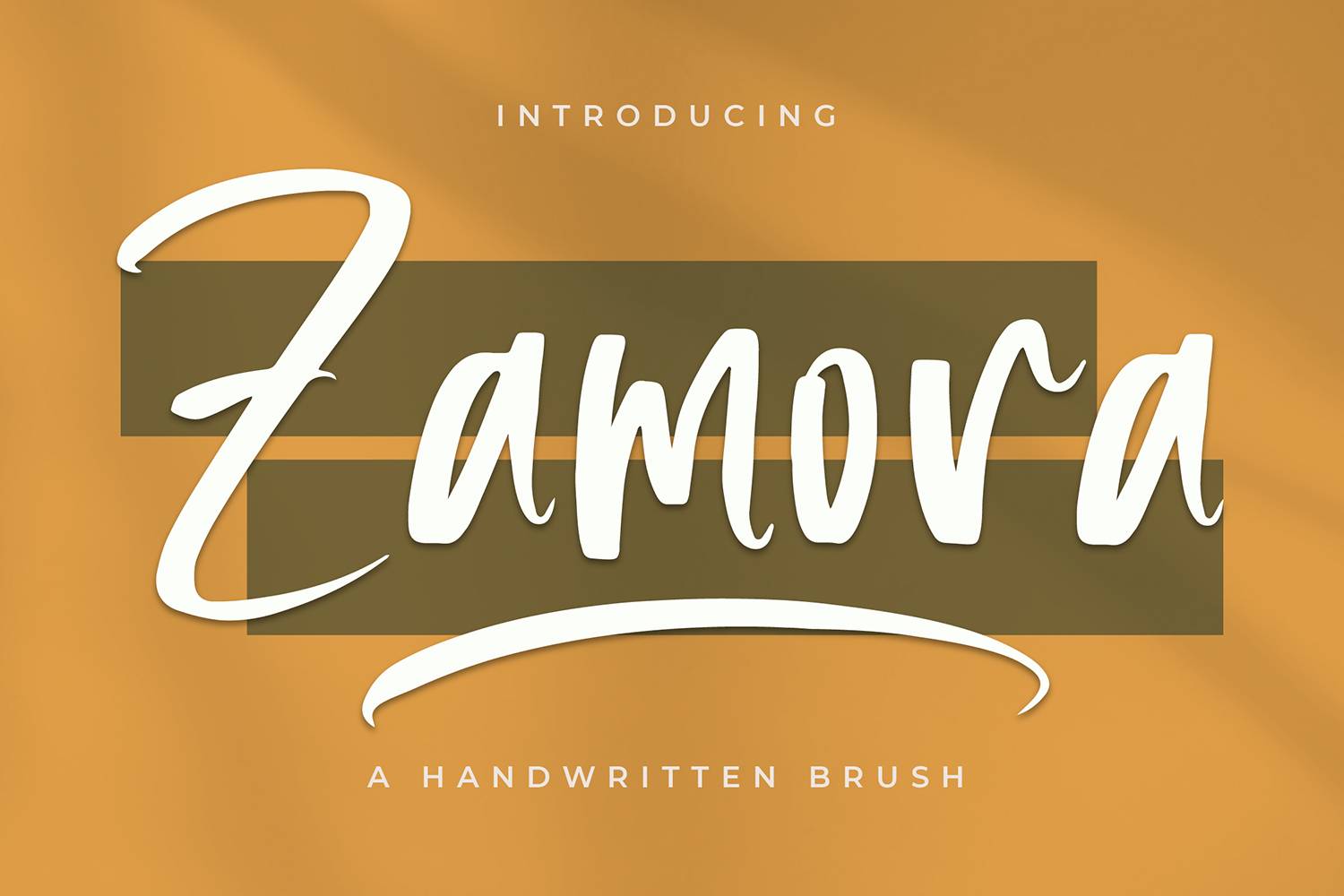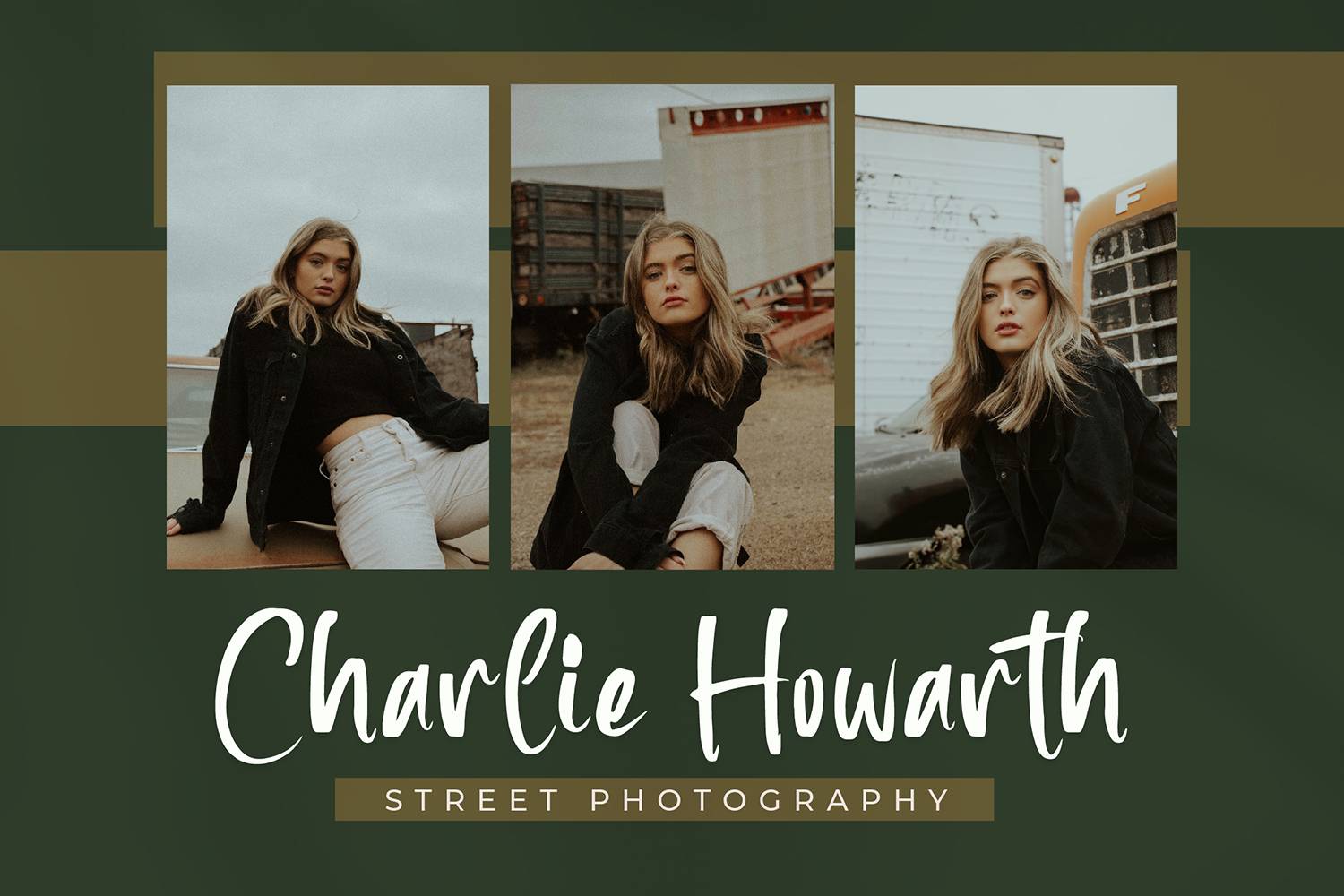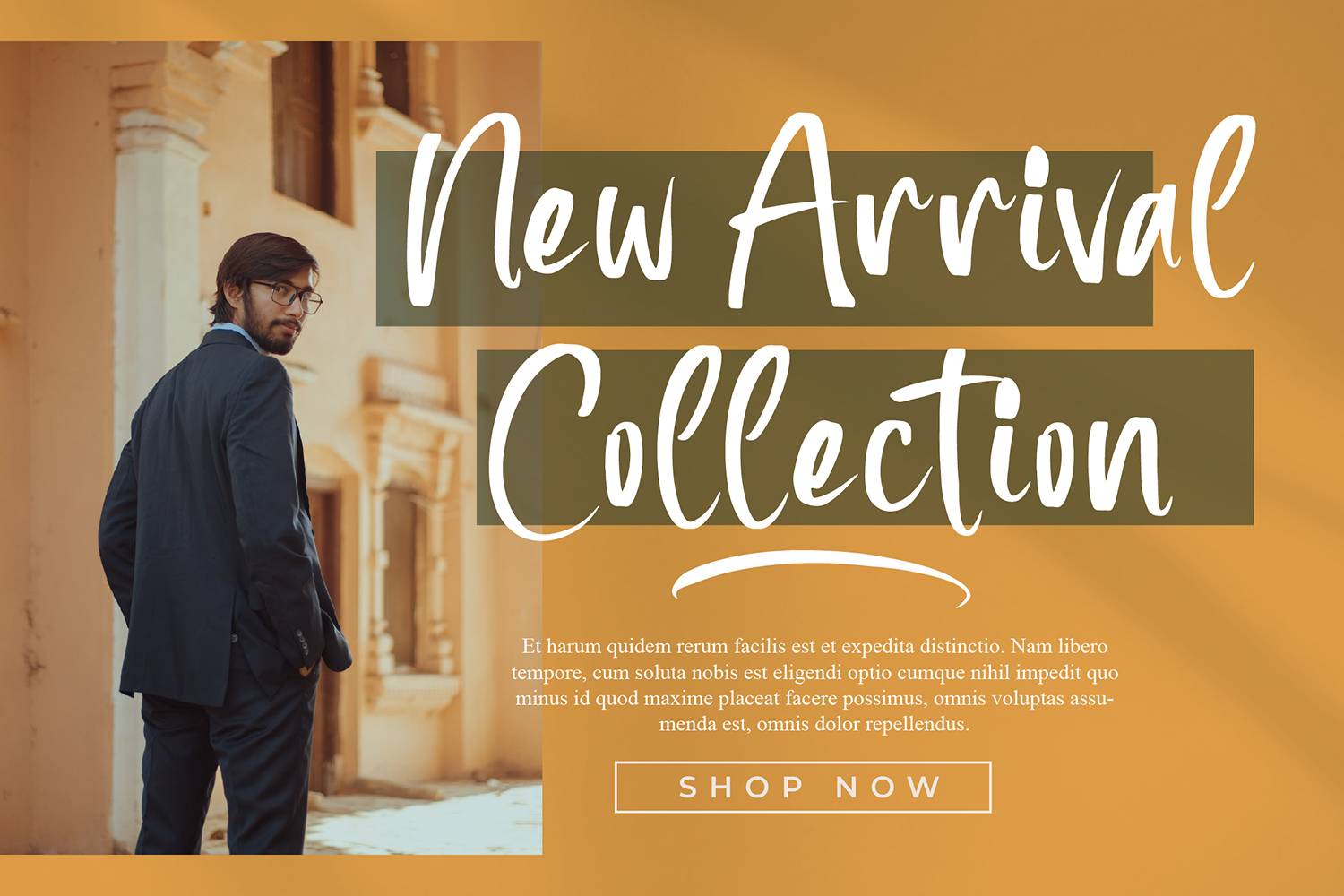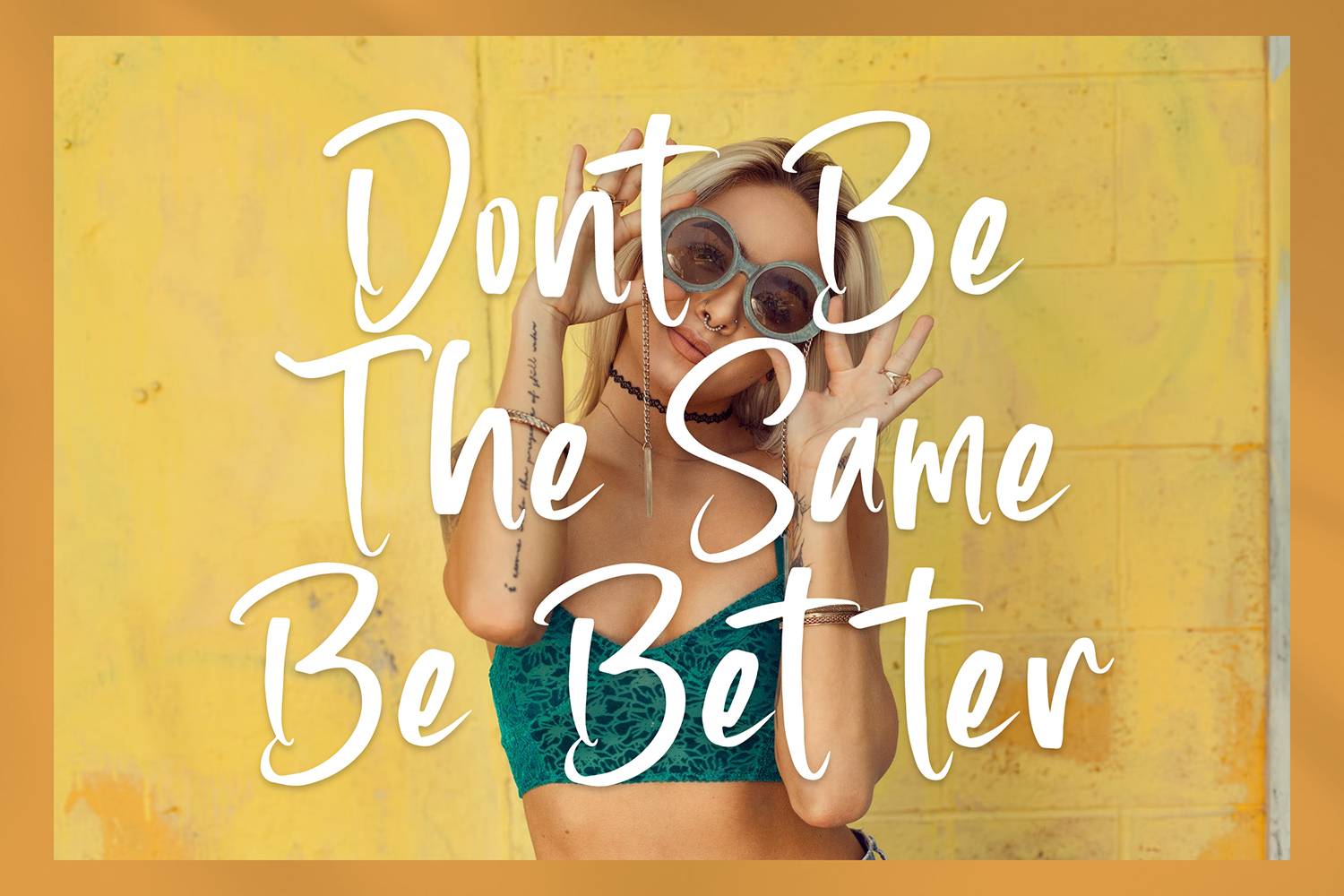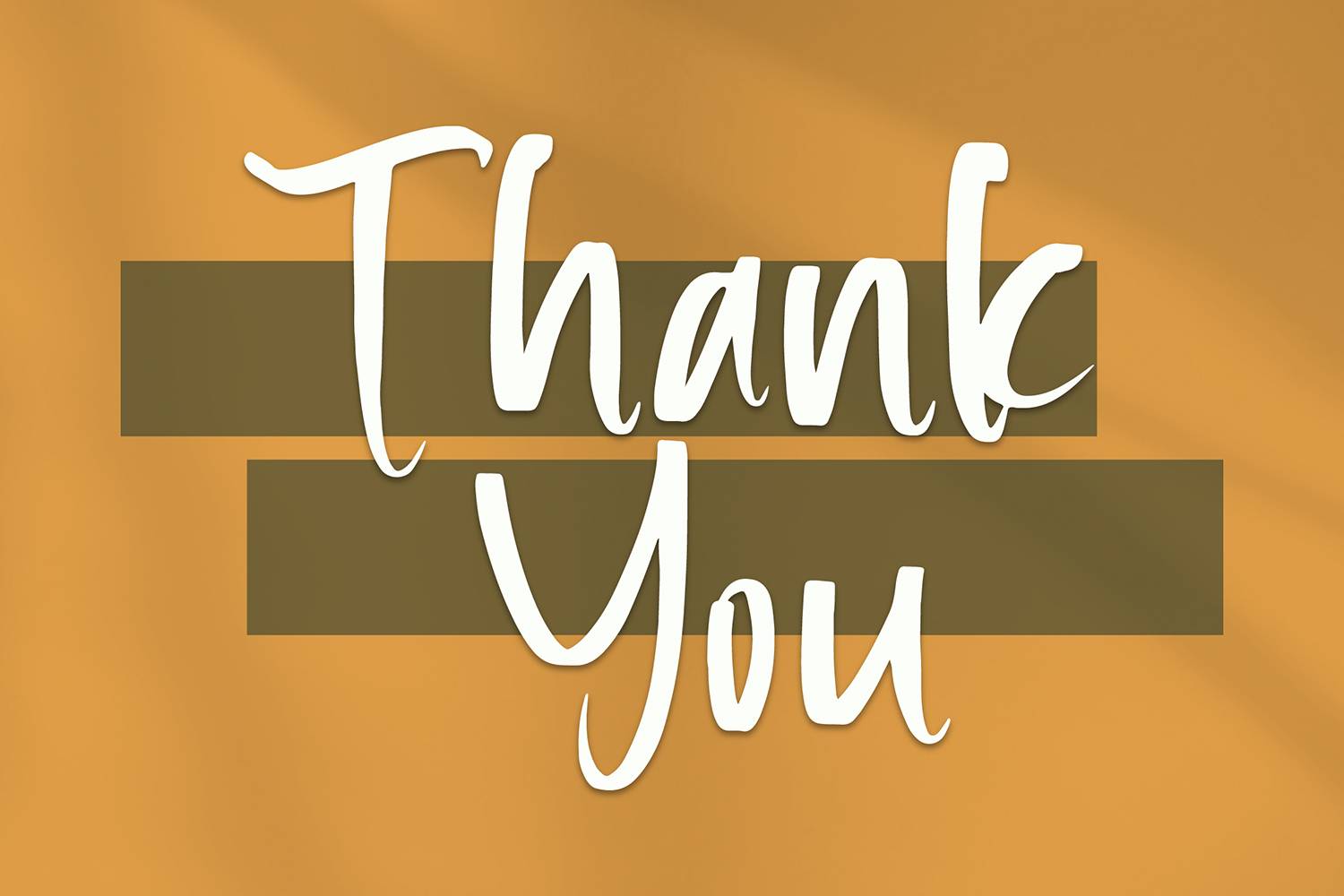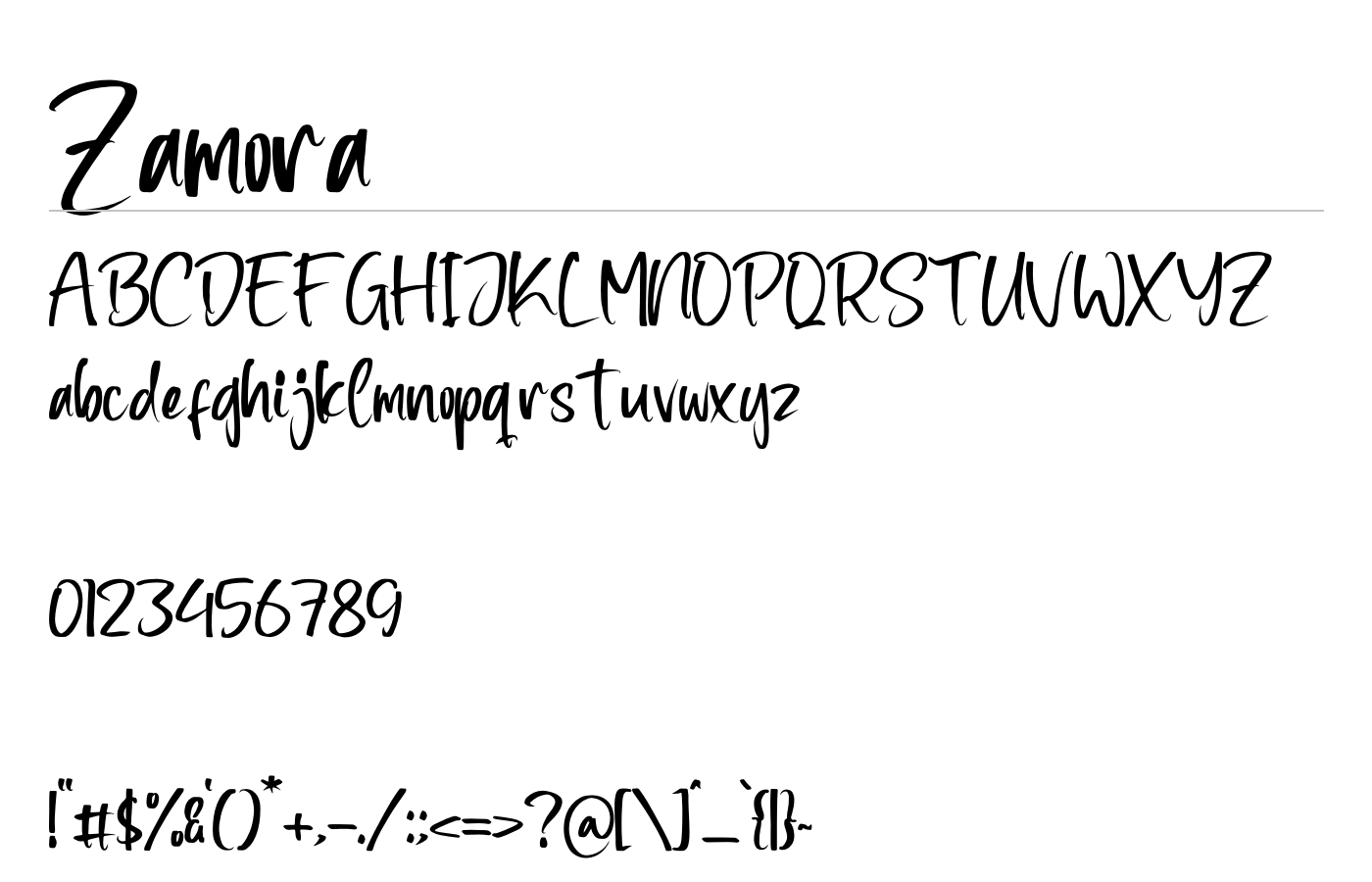
Zamora is a lively, handwritten script font characterized by its casual, brush-like strokes and upright posture. It has a warm, personal feel with varied line weights and a mix of playful and elegant letterforms, making it ideal for creative branding, invitations, and informal editorial projects. Its dynamic style works best where a friendly, approachable touch is desired.
Zamora Font
About Zamora Font